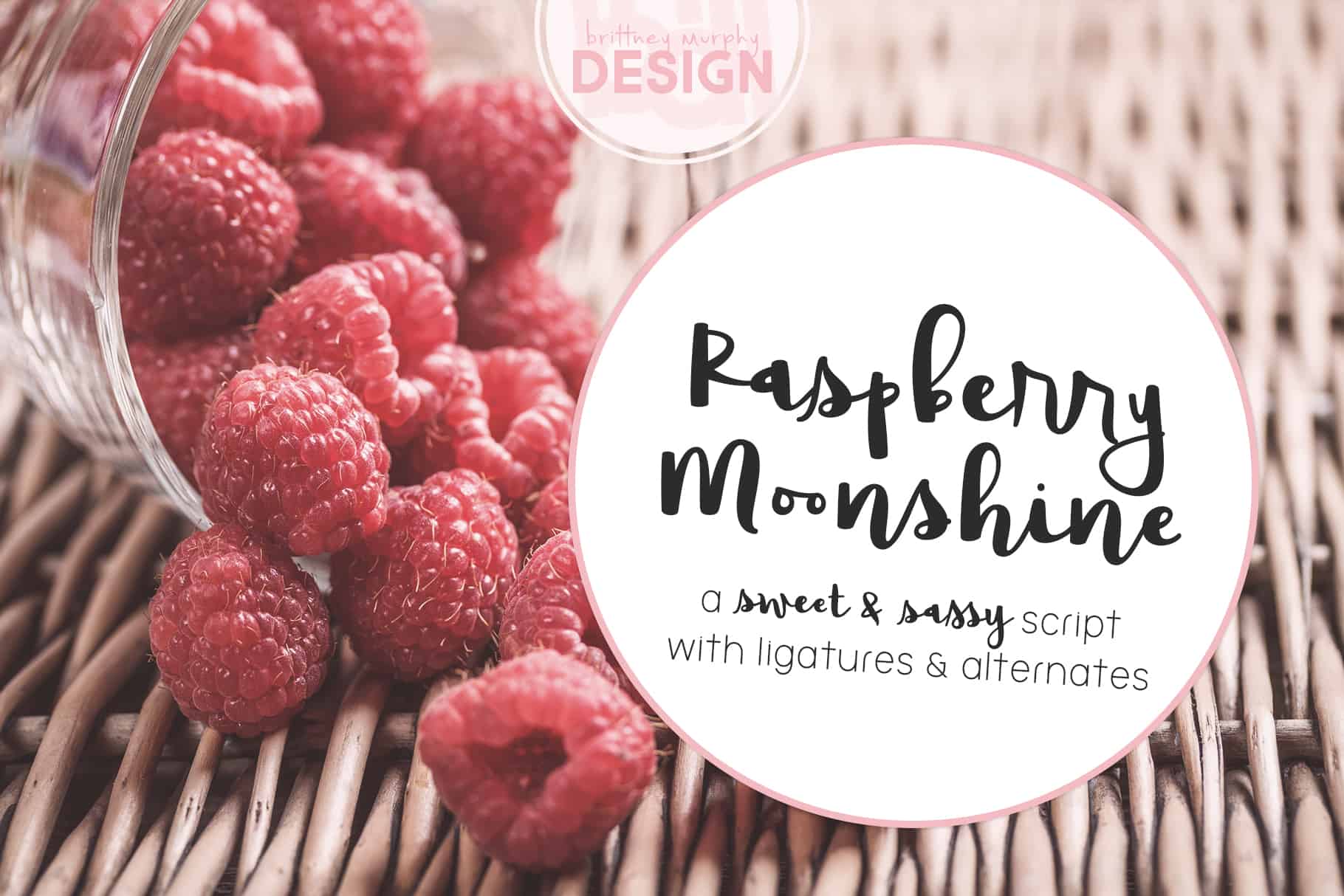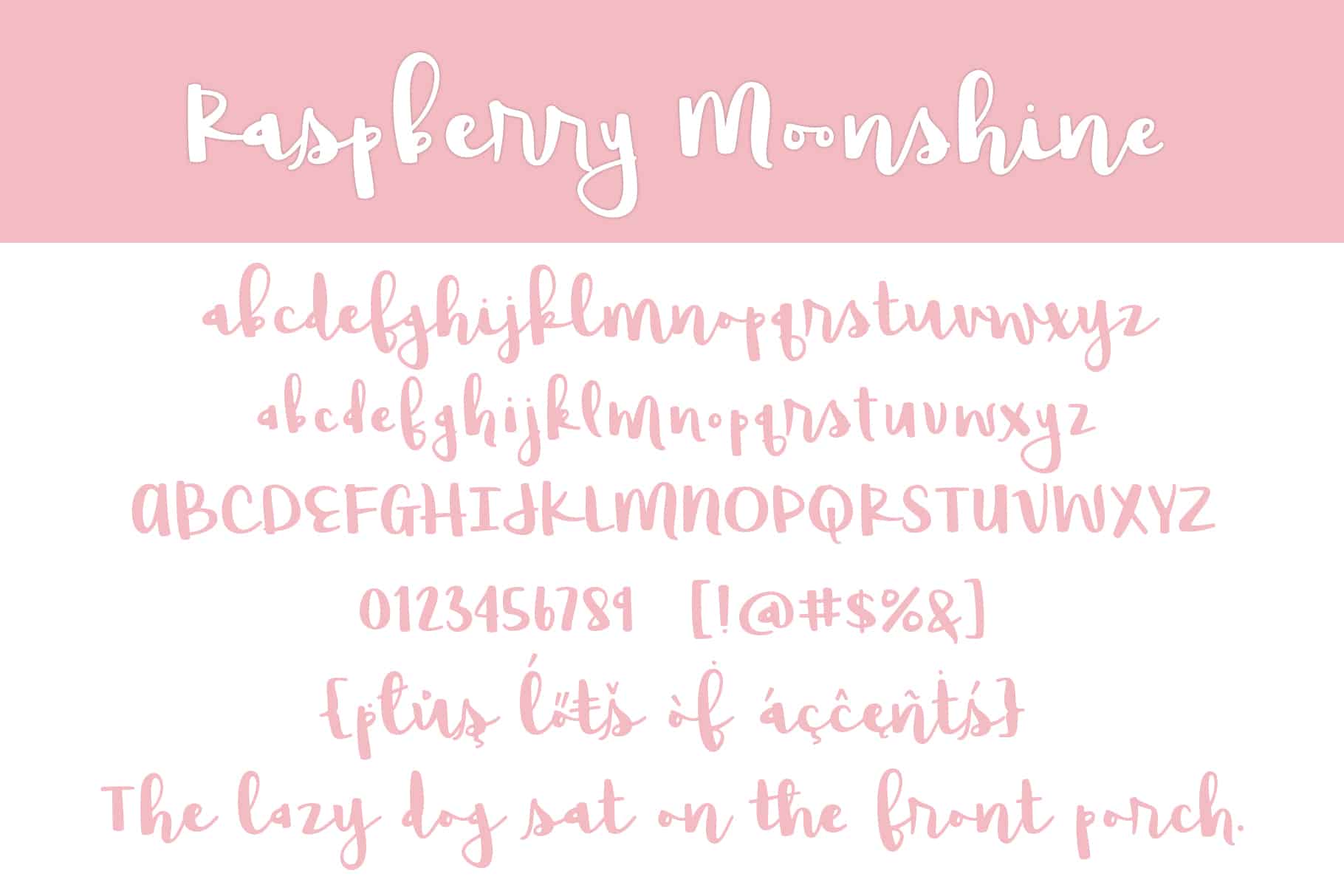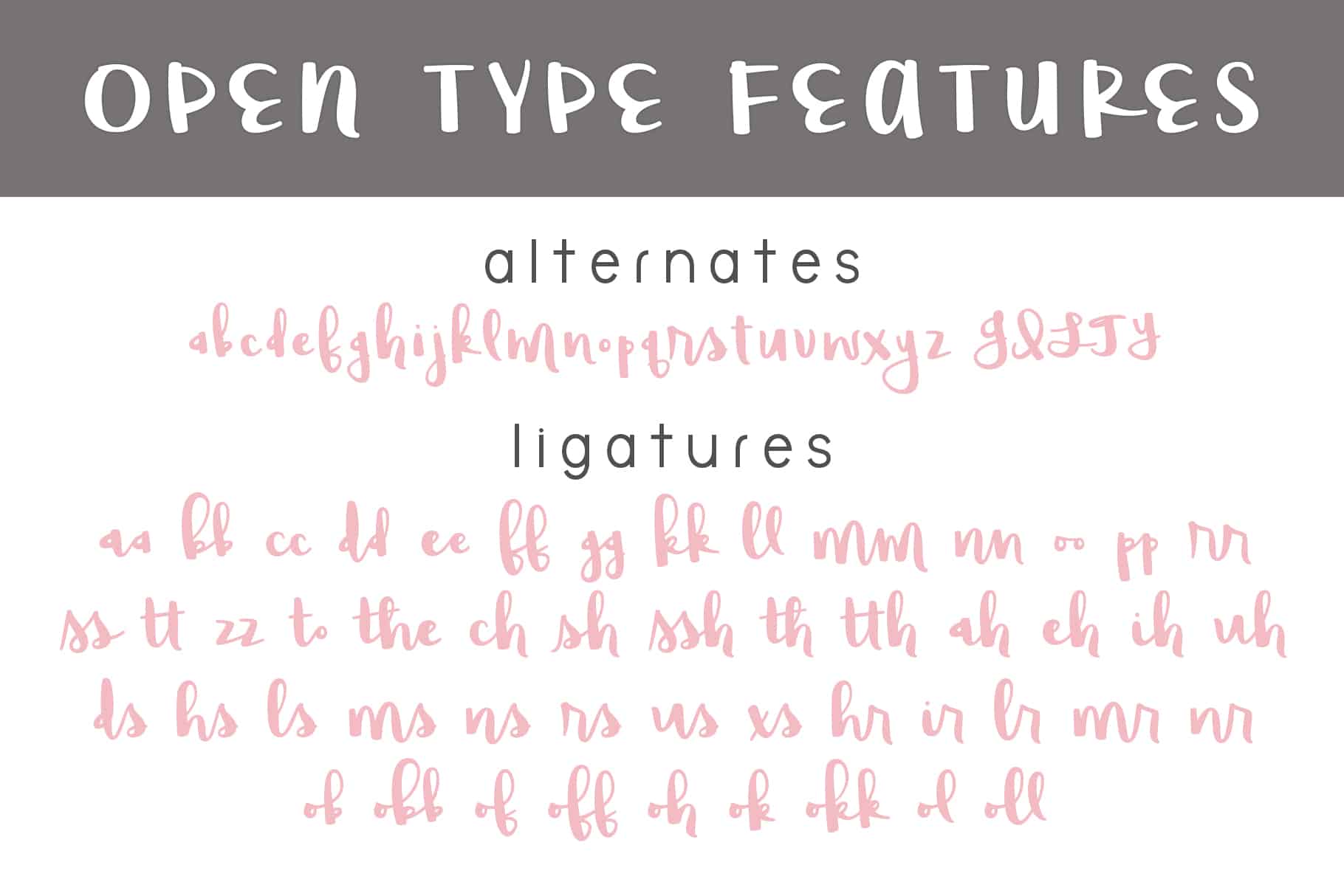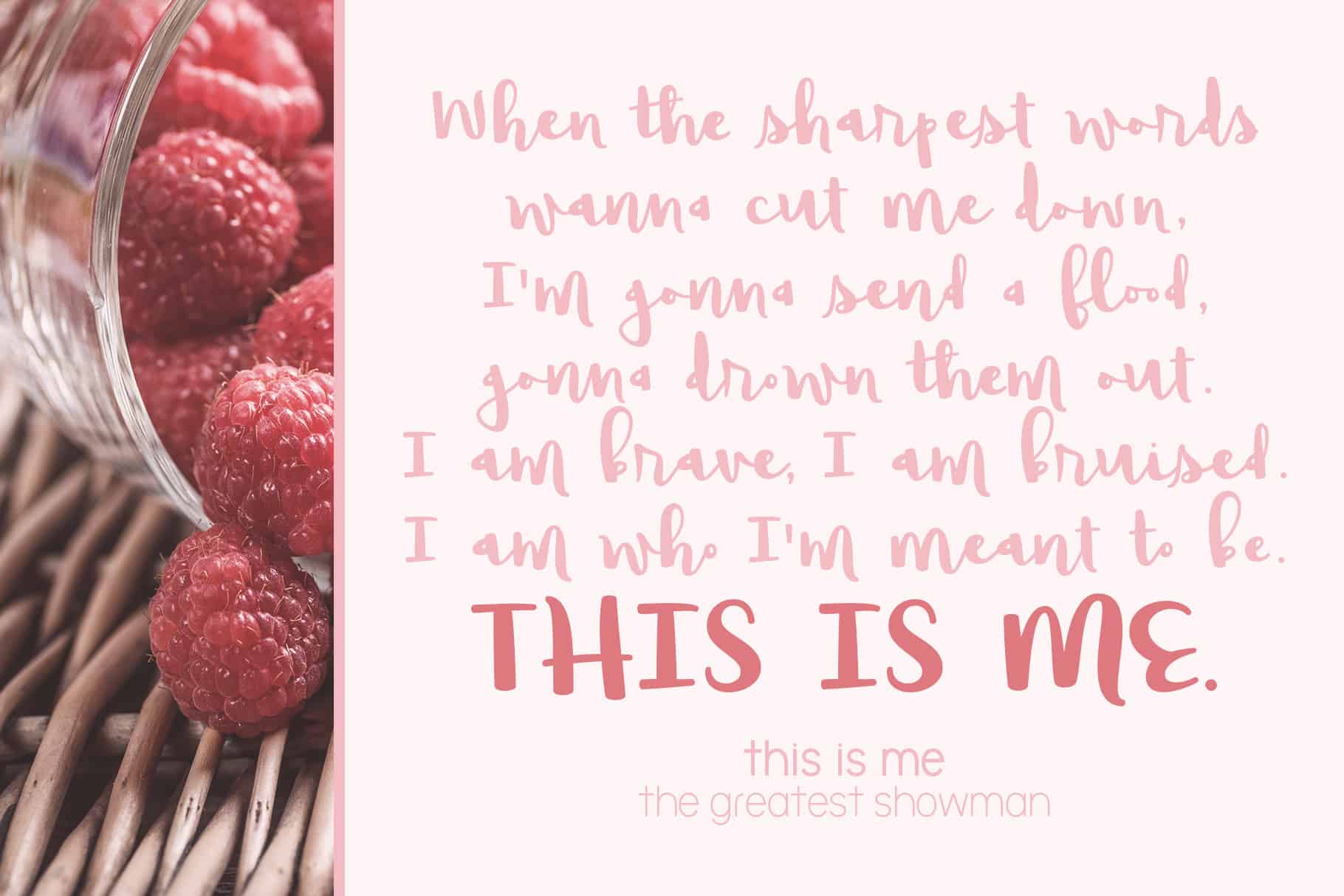
Raspberry Moonshine is a bold & sassy script font with open type alternates and ligatures! Contains over 300 characters, including multi-language support. This download includes both TT and OTF file types.